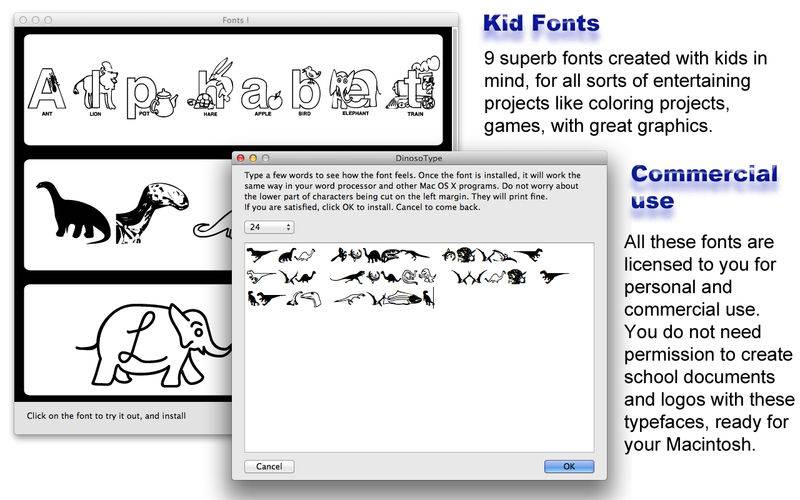
9 original fonts for kids of all ages, and special occasions. All these fonts are authentic creations, new and fresh designs.
You will be able to use them to elaborate splendid documents : window decorations, banners, cards, stickers, coloring projects, posters, books, games, etc.